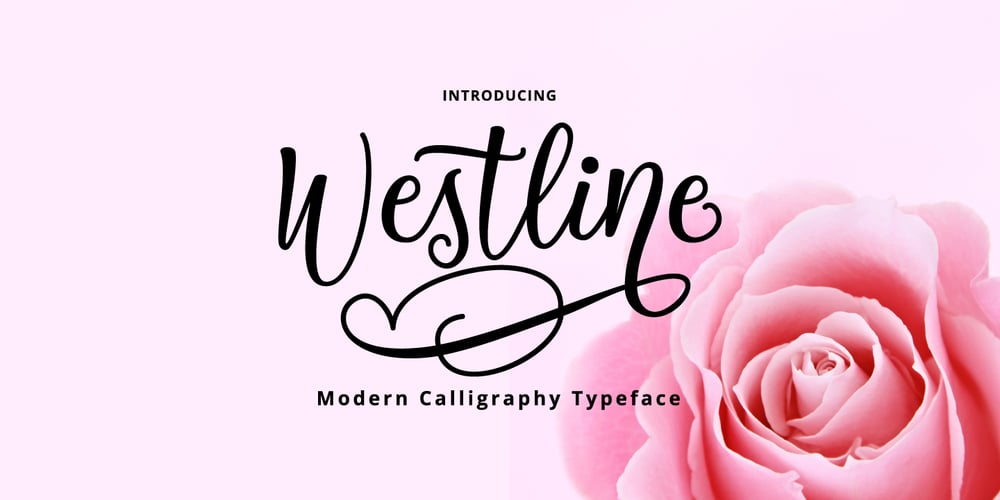
Westline Script
Westline Script font
Westline Script Font Family was designed by Dzulka Elfira and published by Tebaltipis Studio. Westline Script contains 1 styles and family package options. Introducing my new font Westline Script is a unique blend of classic and modern font. imperfect style ups and downs, like a dance letters, smooth, clean and simple. Perfect for wedding, event, invitation, escort card, table number, header menus, display, logos, slider blog, custom address, stamps, packaging, greeting card, etc.Westline Script including alternate glyph and beautiful swirl in a font including stylistic sets, Ligatures etc. The Open Type features can be accessed by using Open Type savvy programs such as Adobe Illustrator CS, Adobe Indesign & CorelDraw X6-X7 and Microsoft Word. And this Font has given PUA unicode (specially coded fonts). so that all the alternate characters can easily be accessed in full by a craftsman or designer.Features:Basic Latin A-Z and a-zNumbersSymbolsStylistic SetLigaturesScript 300+ GlyphsPUA EncodeMultilingual SupportIf you don’t have a program that supports OpenType features such as Adobe Illustrator and CorelDraw X Versions, you can access all the alternate glyphs using Font Book (Mac) or Character Map (Windows).